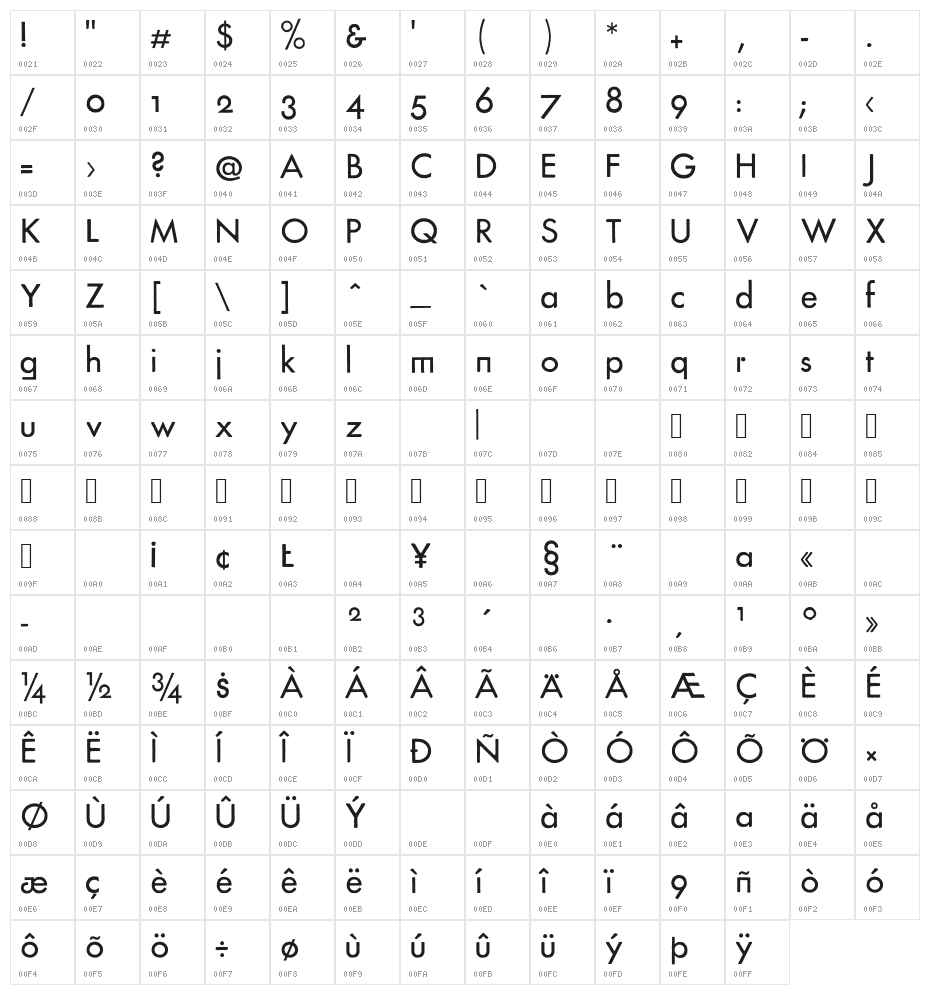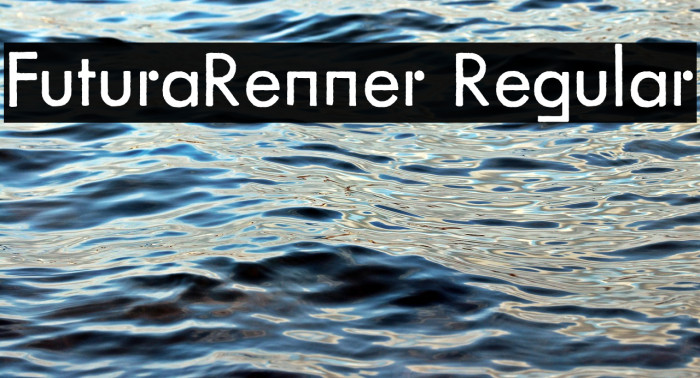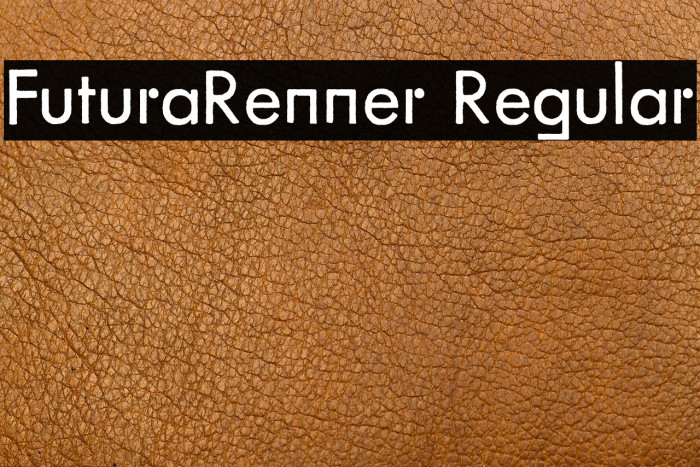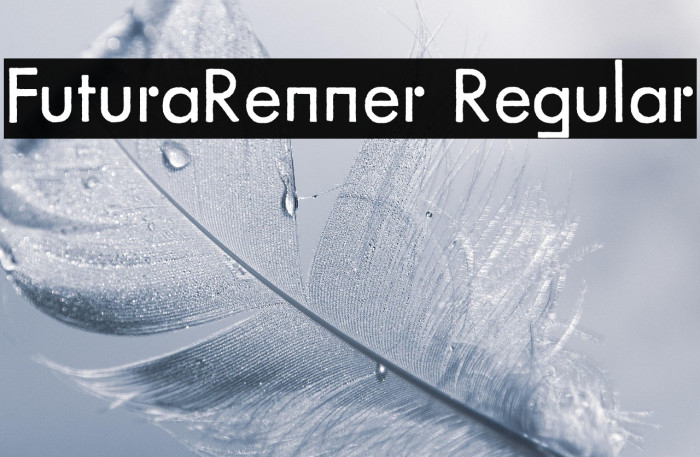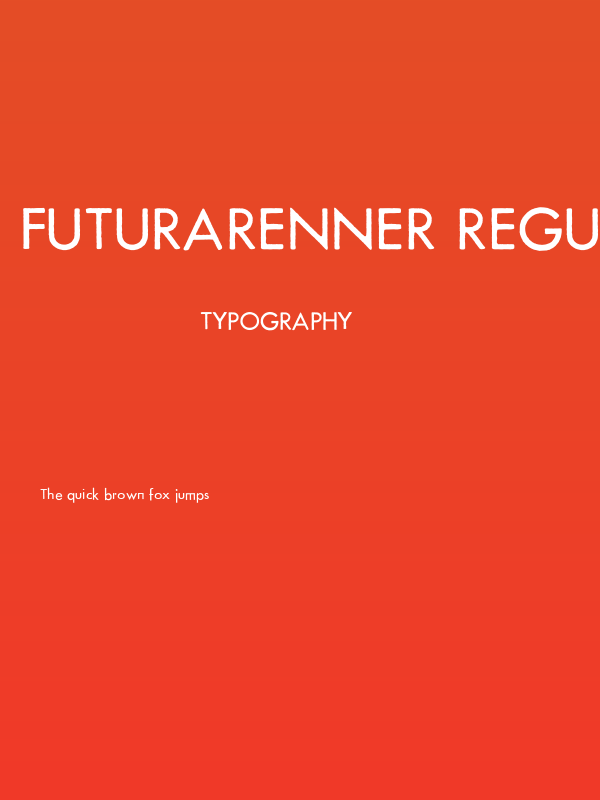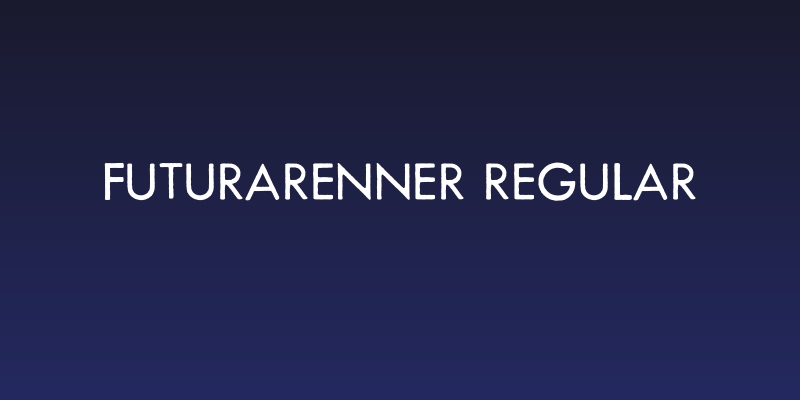
FuturaRenner Regular Font
FuturaRenner Regular Description
This font features a clean, geometric design with a modern aesthetic. The characters are constructed with simple, straight lines and circular shapes, reflecting a minimalist approach. The uppercase letters are bold and uniform, while the lowercase letters maintain a consistent height, providing a harmonious balance. The numerals are clear and legible, designed to complement the alphabetic characters. Special characters are crafted with the same geometric precision, ensuring a cohesive look across all elements. This font is versatile, suitable for a variety of design applications.